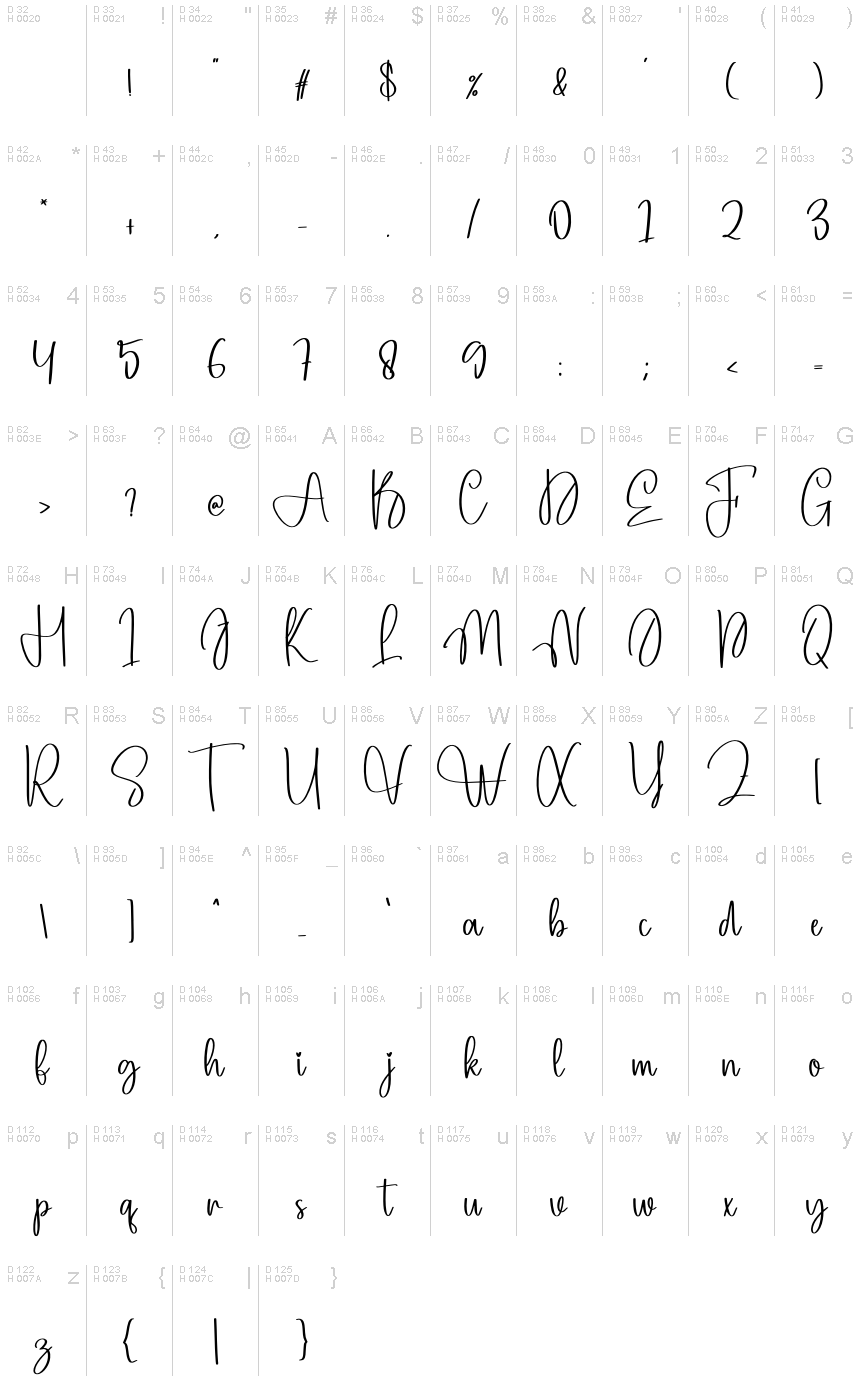
Homestead
Homestead font by Scratchones is a captivating handwritten font that embodies an inviting charm with its light, flowing strokes. Its elegant and airy design adds a personal touch to any project, making it ideal for creative endeavors ranging from invitations to branding materials. The gentle curves and refined style enhance readability while conveying an artistic flair.
Free for download, Homestead is perfect for anyone looking to infuse their work with a sophisticated yet approachable aesthetic. Its versatility lends itself to various design contexts such as greeting cards, logos, or social media graphics. Embrace the handcrafted appeal of this free font and elevate your designs effortlessly.